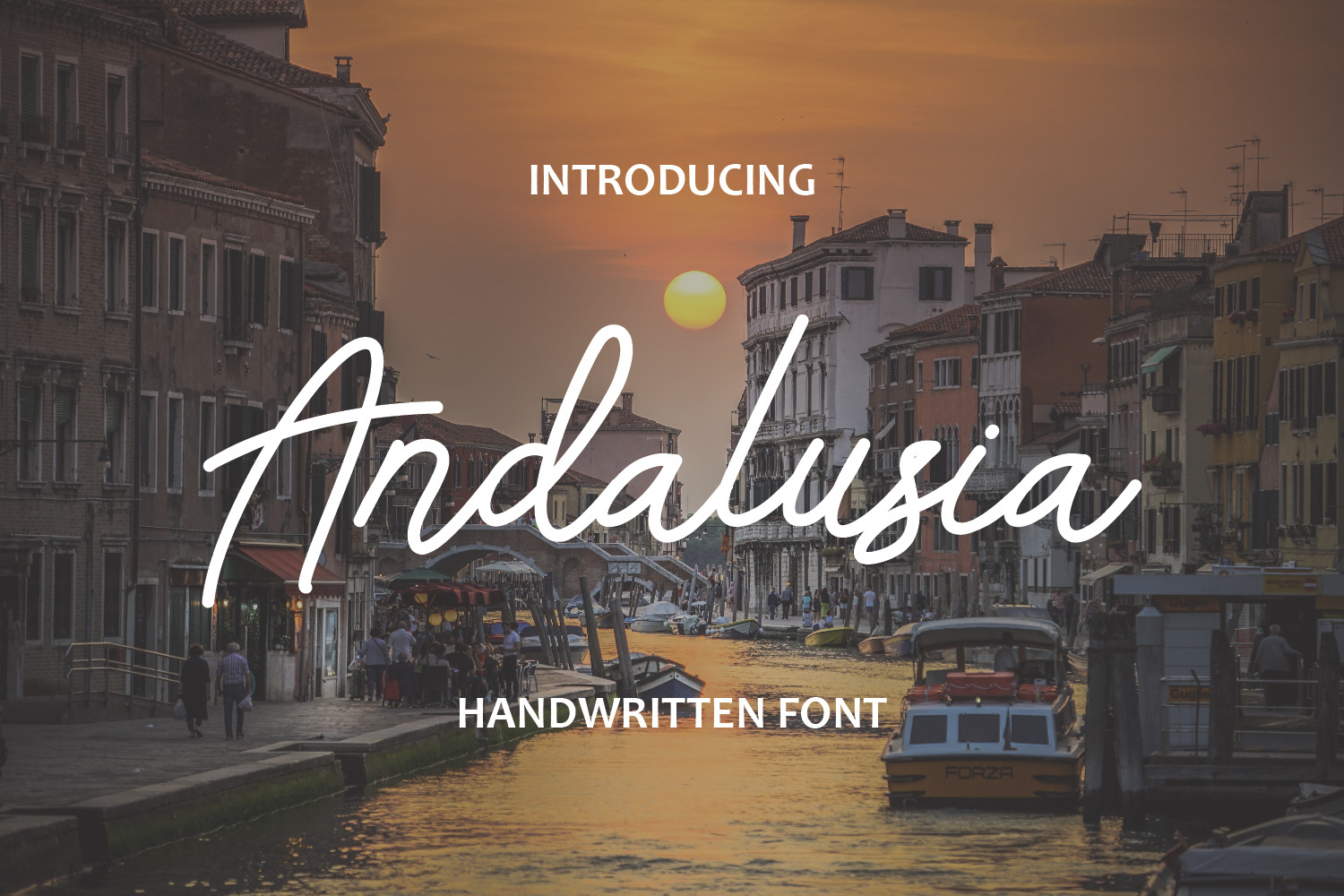
Andalusia - Handwritten Font
Introducing - Andalusia handwritten font which stylish natural handwritten font with simple style, clean and elegant. This font is so fashionable and perfect for photography, branding, signature and logo.